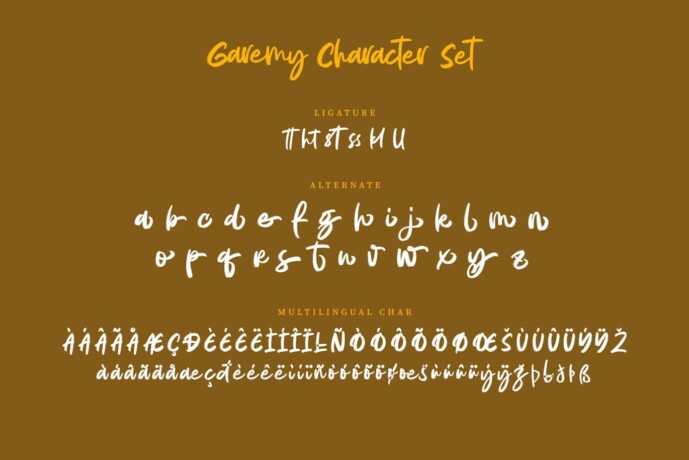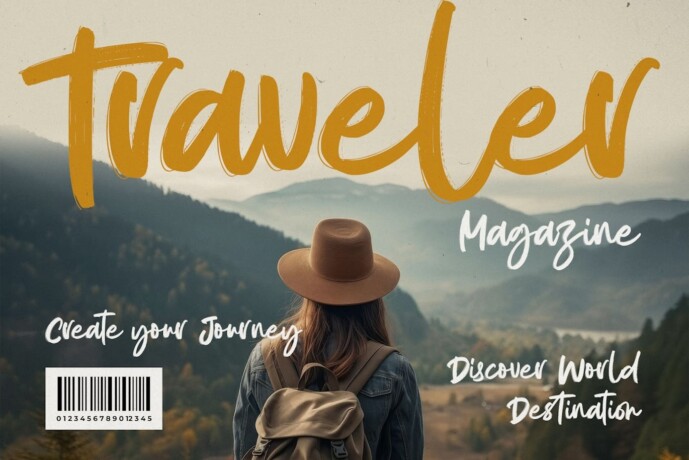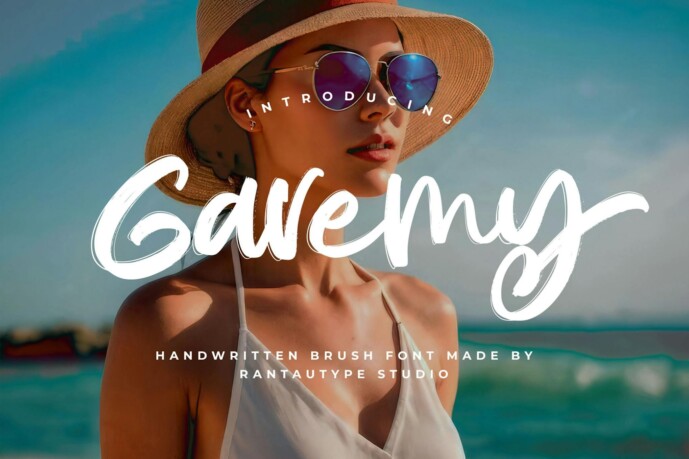
Garemy Font
Garemy Font is a handwritten brush font with a modern look. Garemy brings the aesthetics of striped brush, it can bring you an attractive and sophisticated design project. Garemy comes with alternate, ligature and multilingual character support.
Garemy is a perfect choice for any creative, chic and lifestyle design activities, such as logos, advertisements, watermarks on photography, stationery, branding projects, displays and magazines, invitations, corporate branding, product design, labels, commercial projects and any other projects with a handwritten taste.